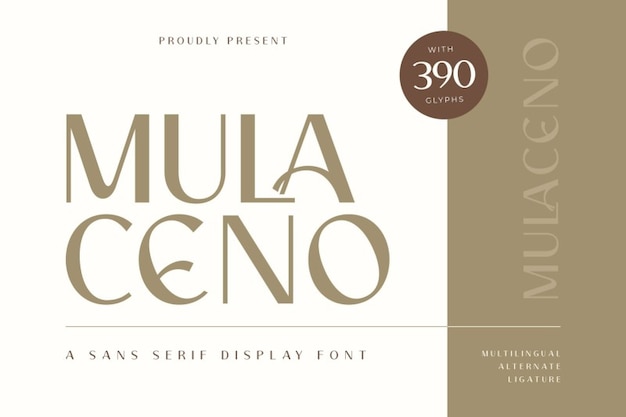
Mulaceno Font
"Mulaceno" is a futuristic font that seamlessly blends straight and rounded ends, creating a striking visual contrast. Each letter exhibits a sleek, modern design that embodies innovation and sophistication. Ideal for tech branding, digital media, or any contemporary project, "Mulaceno" enhances your designs with its unique combination of sharpness and softness, making it a versatile choice for forward-thinking aesthetics.